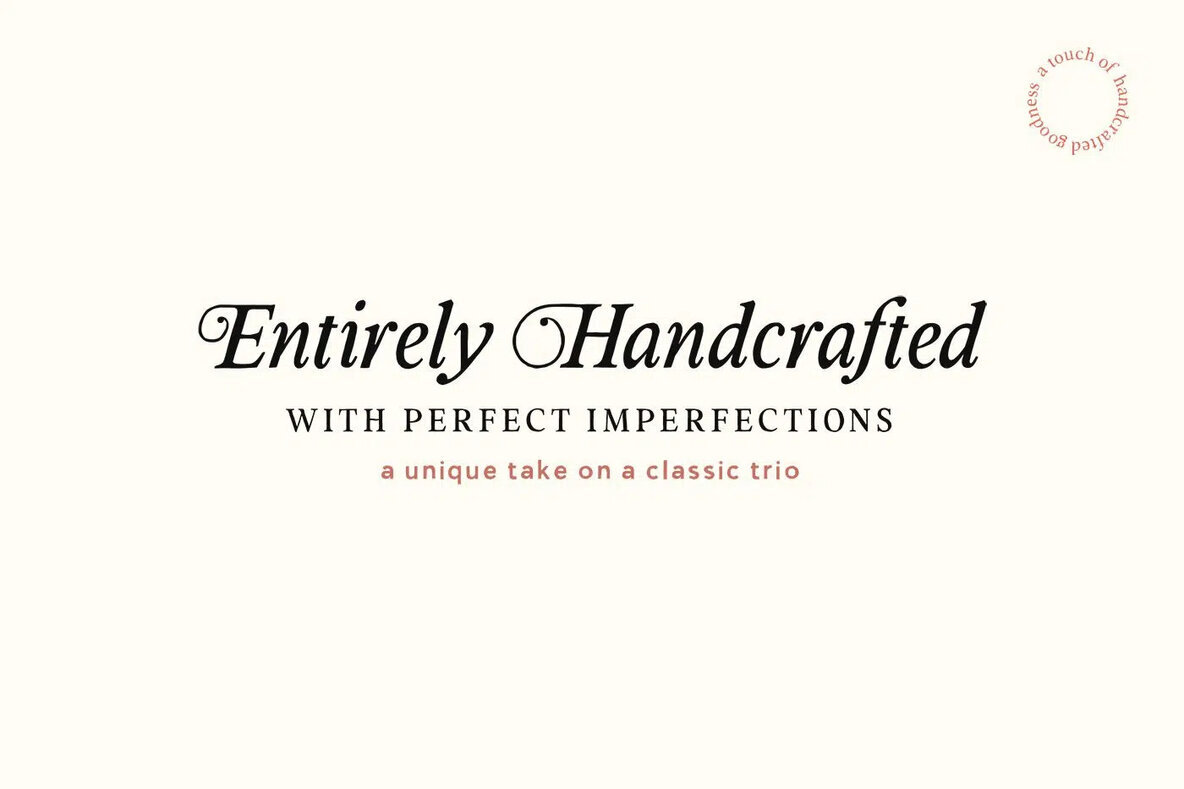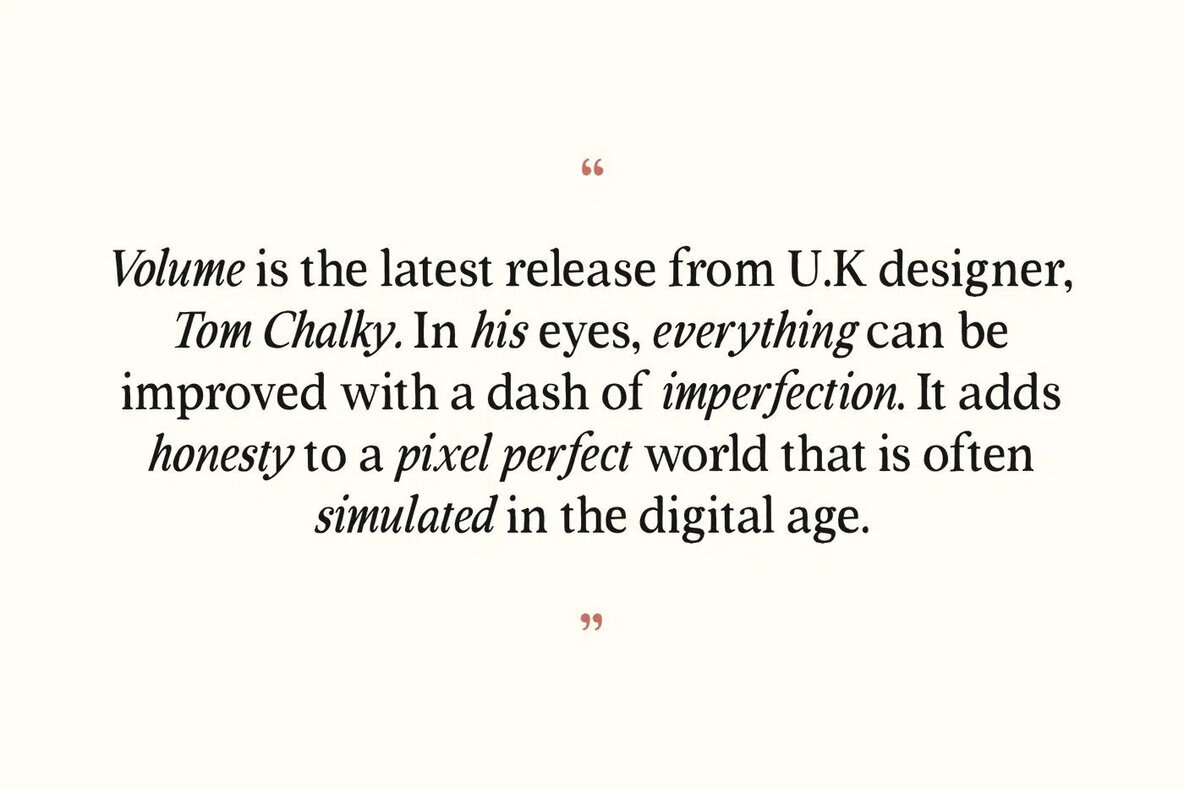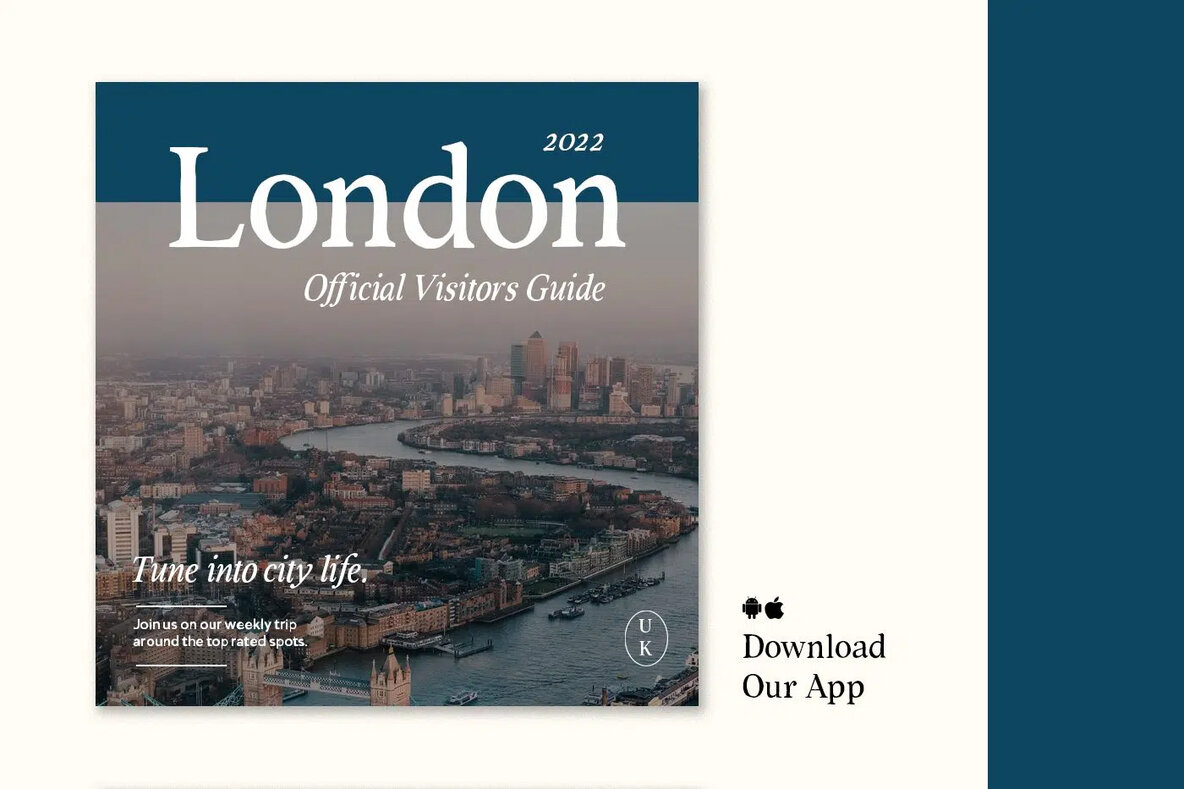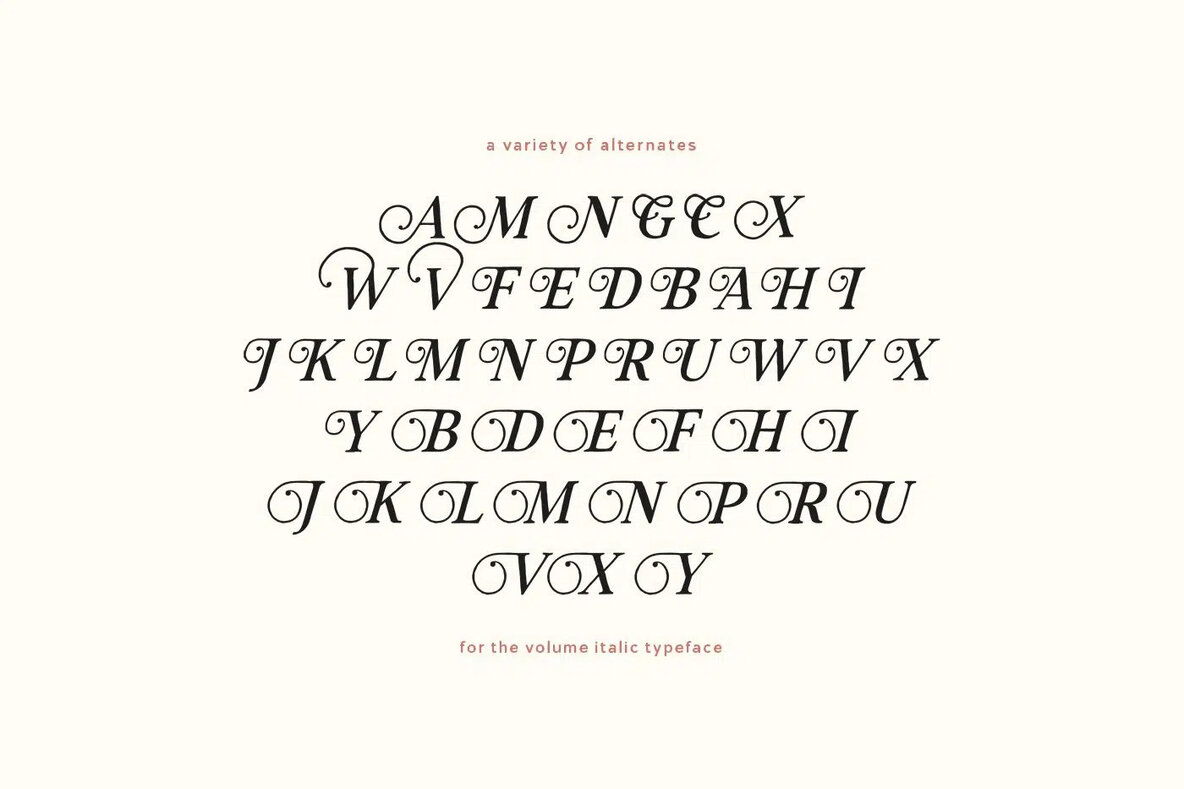
TC Volume Font
Introducing Volume, a refined and versatile font trio that brings a handcrafted touch to classic type design. Featuring a timeless serif, a true italic, and a clean sans, Volume is designed to add both warmth and sophistication to any project. Each font in the family has been crafted with subtle imperfections, striking a balance between formal structure and a human touch, making it ideal for branding, editorial, and digital applications. The italic variant includes a range of stylistic alternates, giving designers even more flexibility to add character and uniqueness to their work. With OpenType compatibility, Volume integrates seamlessly into most design software, including mobile and tablet apps. Multilingual support covers Basic Latin, Western European, Euro, and Pan African Latin characters, ensuring global accessibility. What's inside? Volume TC Regular, Volume TC Regular Italic (with authentic, real italics), and Volume TC Sans – a well-rounded set for projects that demand a blend of classic style and modern versatility.